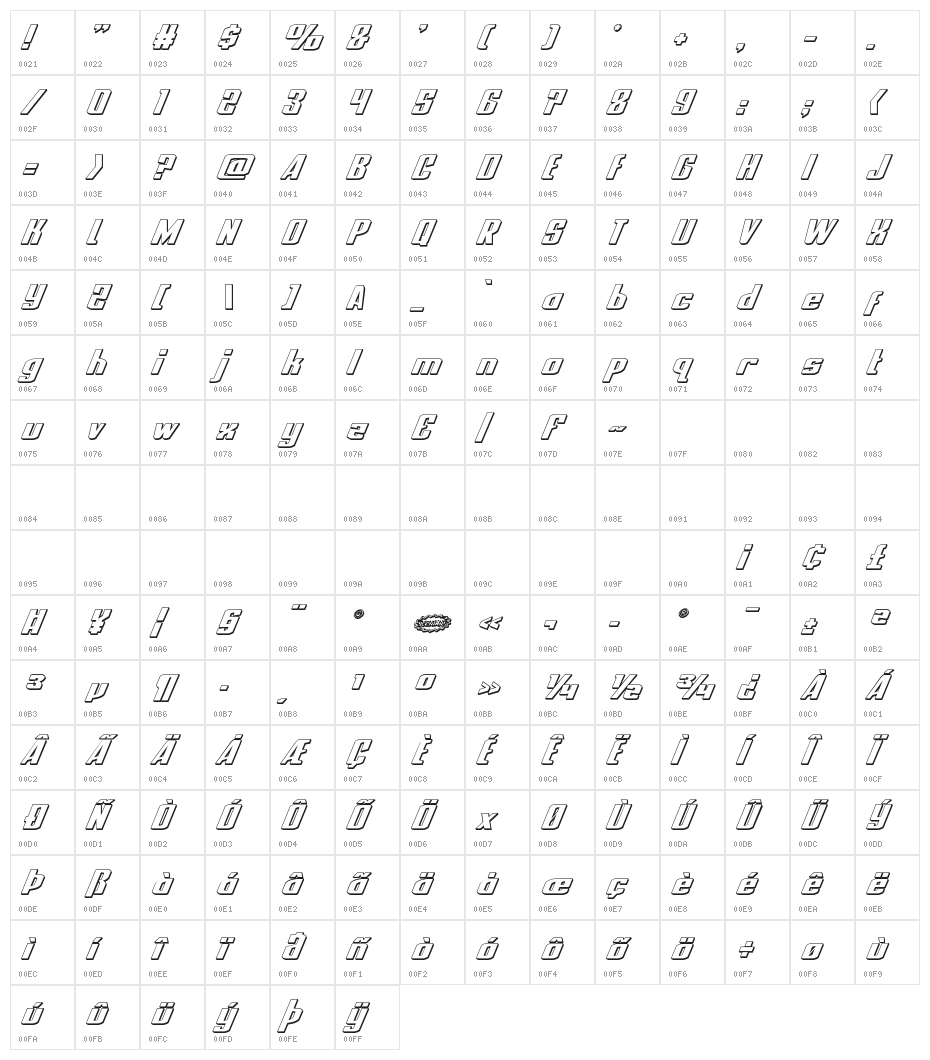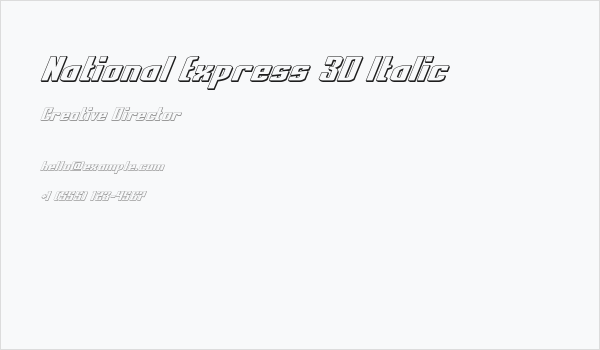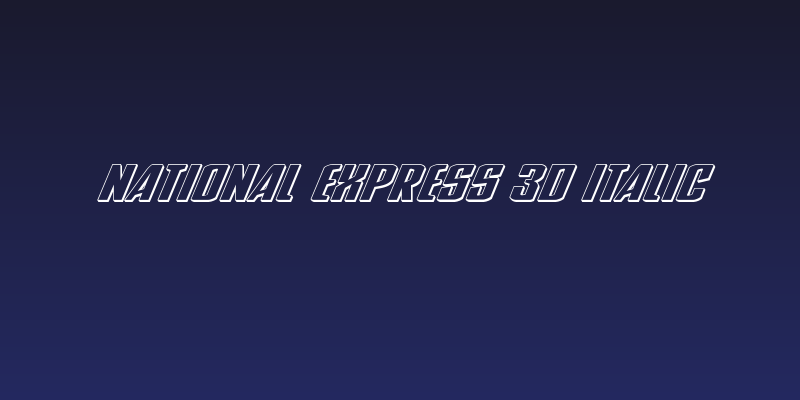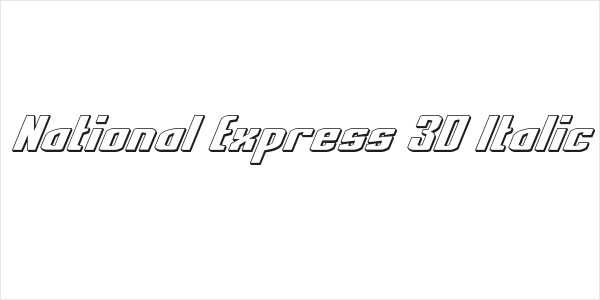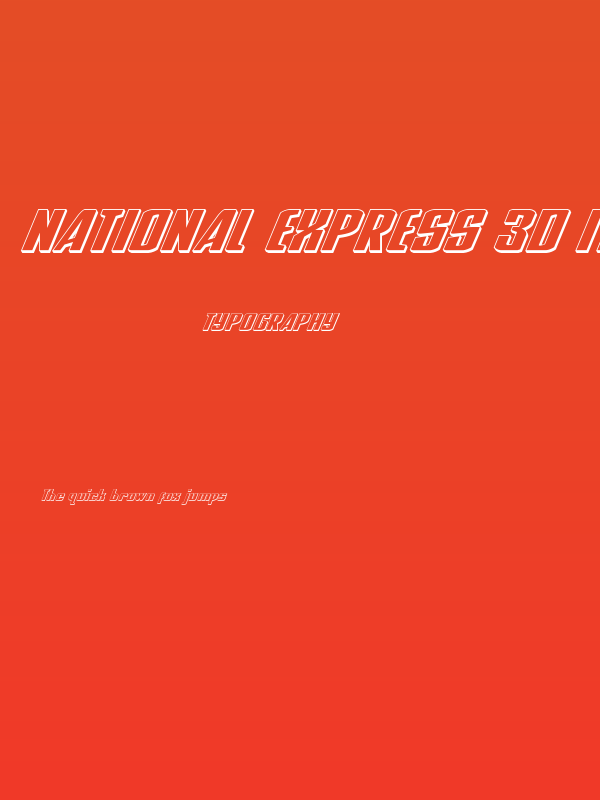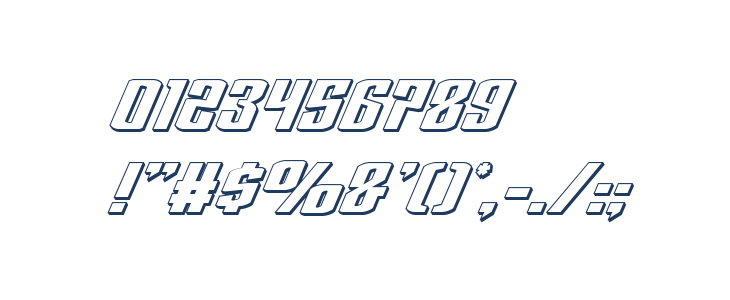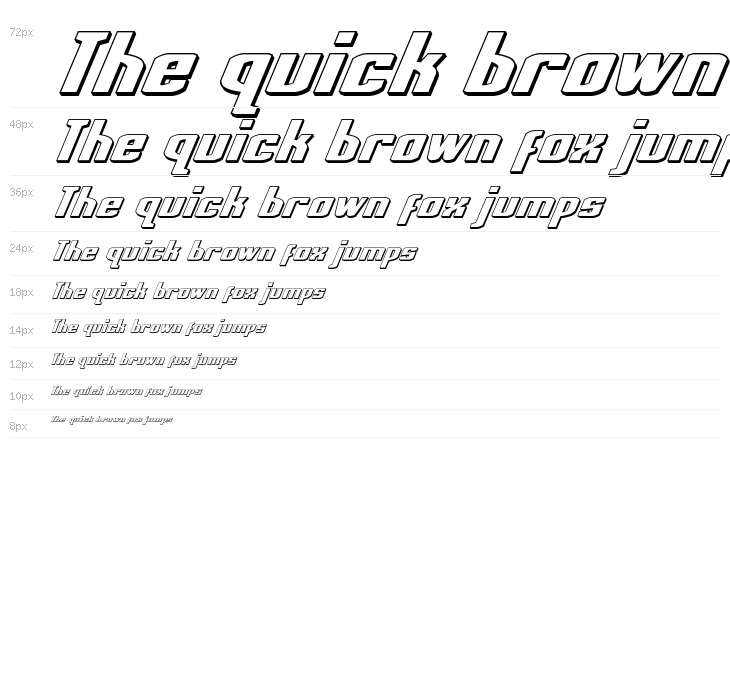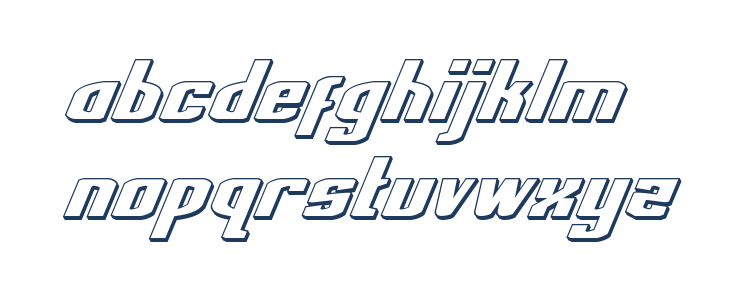
National Express 3D Italic Font
National Express 3D Italic Description
This font features a bold, three-dimensional style with a distinct italic slant, giving it a dynamic and energetic appearance. The characters are outlined, creating a shadow effect that enhances the 3D illusion. The uppercase and lowercase letters maintain a consistent style, with angular edges and a slightly condensed form. The numerals and special characters follow the same design principles, ensuring uniformity across all glyphs. This font's unique style makes it stand out, ideal for projects that require a strong visual impact.
| Proposed Projects | Ideal for posters, logos, and branding materials that require a striking and modern look. |